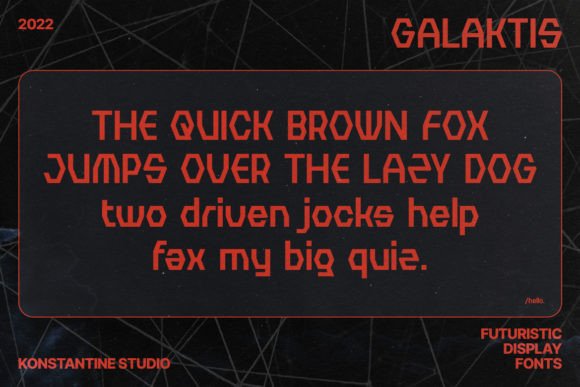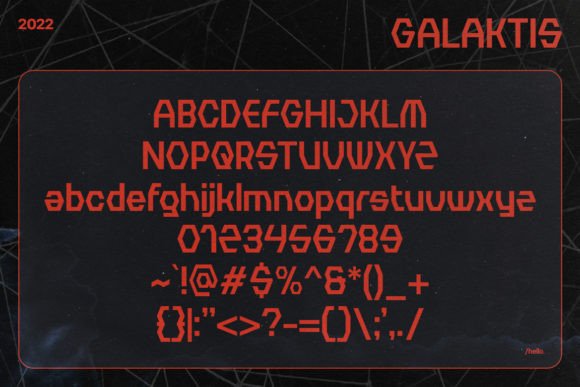
Introduction to Galaktis Font
Jump up into the spaceship in a form of fonts with Galaktis.
A futuristic display font with the vibes of space and the futuristic digital era Get ready to experience the journey with Galaktis.
Key Features of Galaktis Font